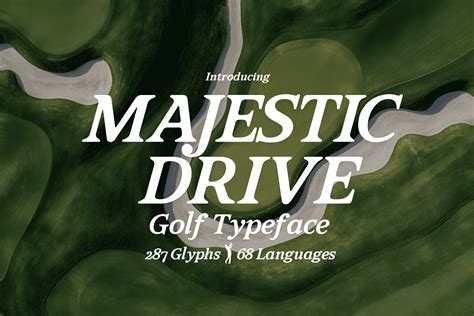
Golf Fonts: Get Ready To Tee Off In Style In 2023
As we enter 2023, golfers of all skill levels are taking their game to the next level. No matter if you’re a recreational duffer or a PGA pro, it’s important to make sure your apparel, equipment, and even your font game are on par with the rest of the competition. That’s why we’ve put together a list of the best golf fonts you should consider to help you tee off in style.
Typography 101: What Are Golf Fonts?
Golf fonts are a type of font specifically designed for golf-related designs and apparel. They often feature a classic, traditional style that harkens back to the golden age of golf. Of course, this doesn’t mean they’re all the same. Golf fonts can come in a variety of styles and designs, from ornate serifs to minimalist sans-serifs.
The best golf fonts will not only match the look and feel of the rest of your golfing gear, but will also be readable and easy to read. After all, your golf shirt or hat is no good if no one can read your logo or team name!
The Best Golf Fonts for 2023
Now that you know what golf fonts are and why they’re important, let’s take a look at some of the best golf fonts available in 2023. Whether you’re looking for a classic serif or a modern sans-serif, there’s something here for everyone.
Serif Fonts
Serif fonts are characterized by their decorative flourishes and tails. They often evoke a feeling of sophistication, which can be great for golf apparel. Some of the best serif fonts for golf in 2023 include:
- Playfair Display: A classic serif font with a timeless style.
- Lora: A modern serif font with a hint of retro flair.
- Gentium Basic: A versatile serif font with a smooth, rounded look.
- Roboto Slab: A modern serif font with a contemporary twist.
Sans-Serif Fonts
Sans-serif fonts are characterized by their lack of decorative flourishes and tails. They often evoke a feeling of modernity and minimalism, which can be great for sports apparel. Some of the best sans-serif fonts for golf in 2023 include:
- Roboto: A modern sans-serif font with a clean, geometric look.
- Raleway: A classic sans-serif font with a hint of retro flair.
- Source Sans Pro: A versatile sans-serif font with a smooth, rounded look.
- Montserrat: A modern sans-serif font with a contemporary twist.
Final Thoughts on Golf Fonts
Golf fonts can be a great way to show off your style on the golf course. Whether you’re a PGA pro or a weekend duffer, make sure you check out our list of the best golf fonts for 2023. From classic serifs to modern sans-serifs, there’s something here for everyone. So what are you waiting for? Get out there and tee off in style!